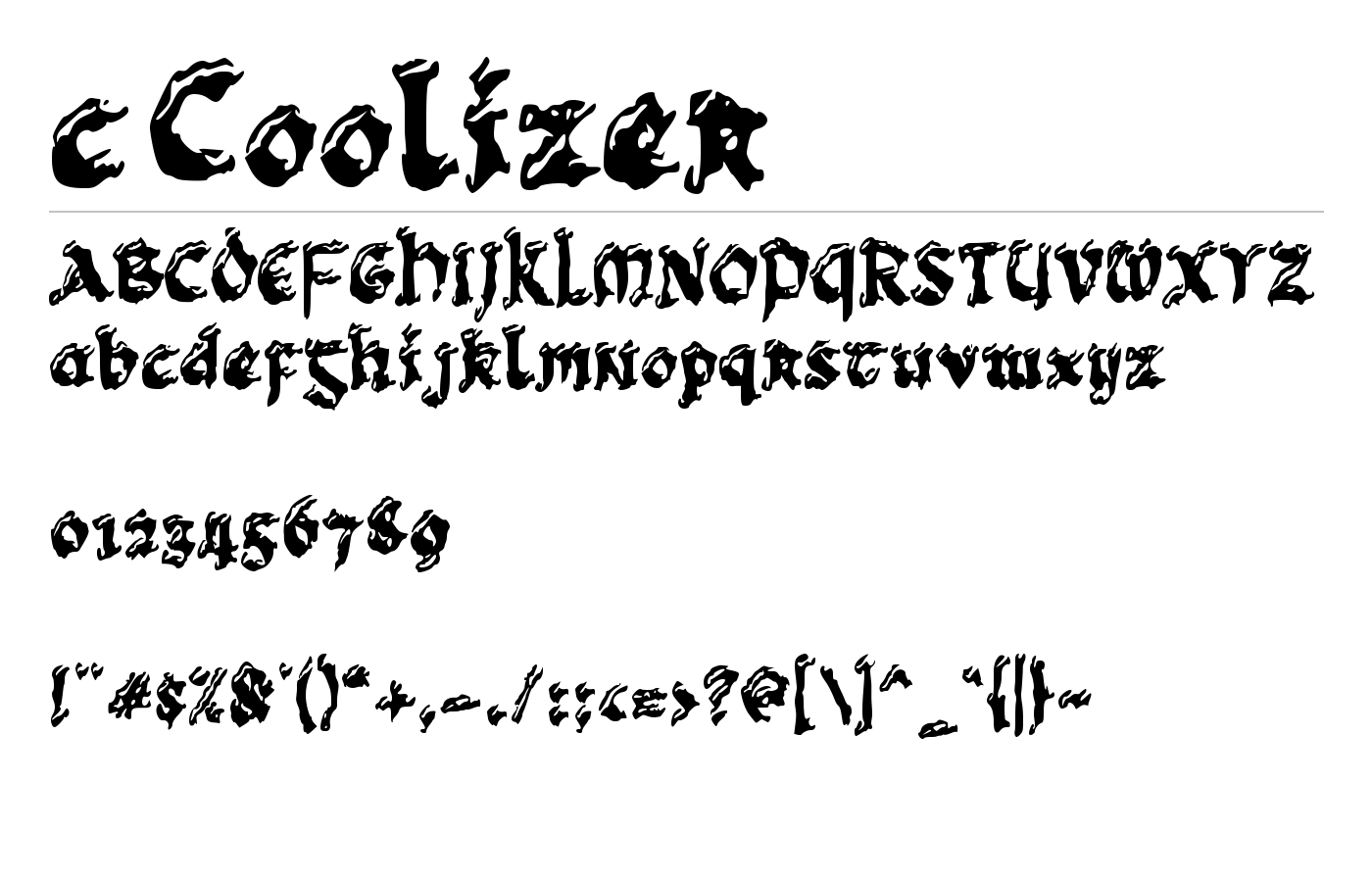
Coolizer is a decorative, blackletter-style font with a heavy, textured appearance that evokes a dark, eerie, and gothic vibe. Its irregular, bold strokes and jagged edges make it ideal for horror-themed designs, Halloween projects, or any creative work seeking an unsettling, dramatic effect. This font works best in headlines, logos, or posters where its unique character can capture attention and set a spooky, mysterious tone.
c Coolizer Font